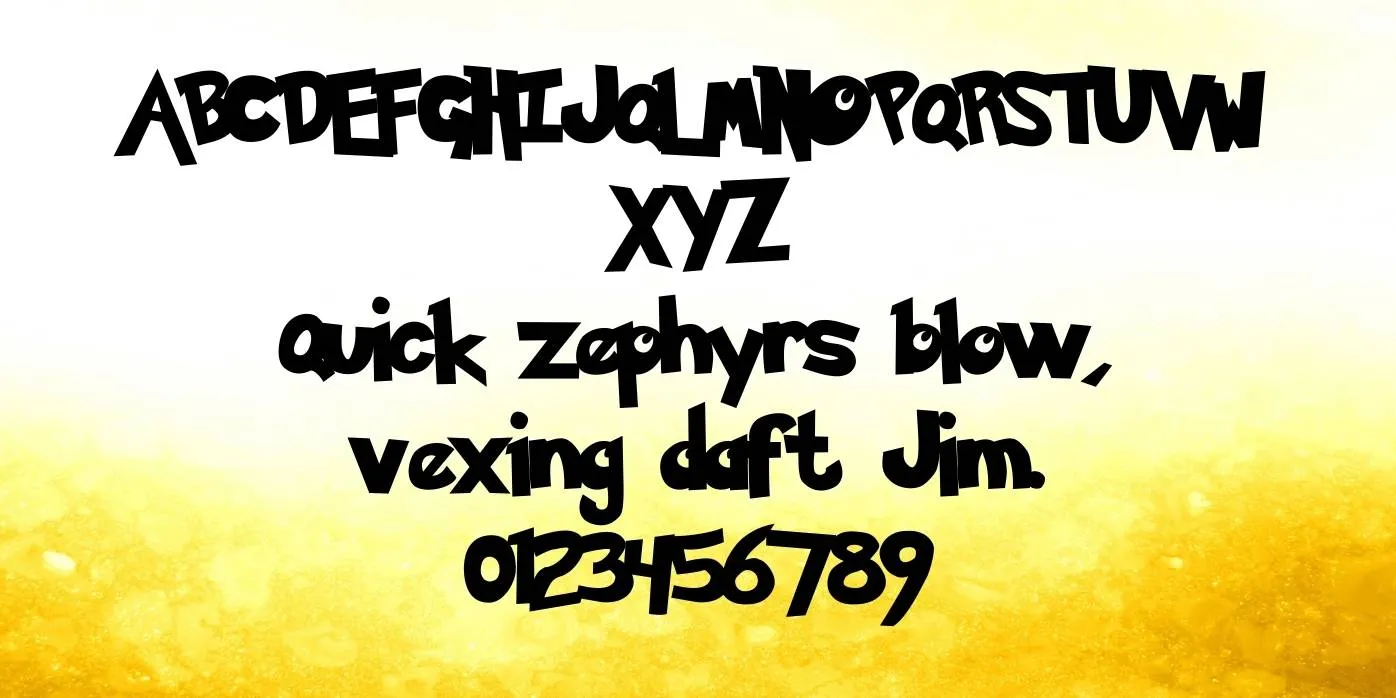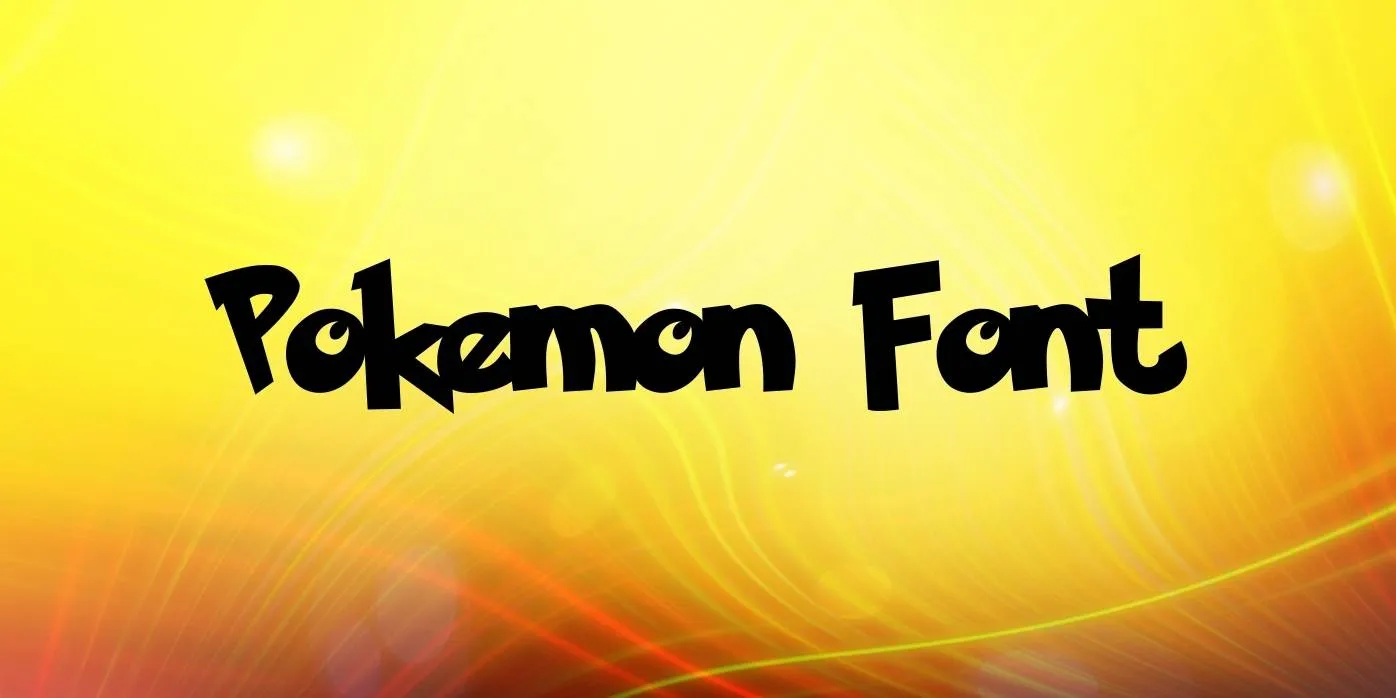
Pokemon Font
We are introducing an awesome and clean typeface named Wicked Font. This stunning font belongs to the Fancy typeface. This classic font family is designed by a well-famous and brilliant designer Neale Davidson. This font was developed for use in the logo of the famous pokemon games and cartons.
This font family is used many times for designing logos of games and gain great popularity. In Aachen font, this stunning typeface was created by using comic letters. This typeface earns great fame in various designing fields. It comes in two different types of styles.
By using its styles it gave an outstanding look to your designs and impress your client with the best results. If you want to get heed of your audience you must use this typeface. The famous game Pocket Monster is the main reason behind the popularity of this clean typeface. For designing invitation cards and logos this typeface is frequently used.
This font family provides the facility of the online generator to make your text and graphics advanced. You can use this Google Font for your various projects and trading. The game is popular because of its text generations functions. Pokemon Hollow and Pokemon Solid styles are used for numerals, punctuations, and uppercase and lowercase alphabets.